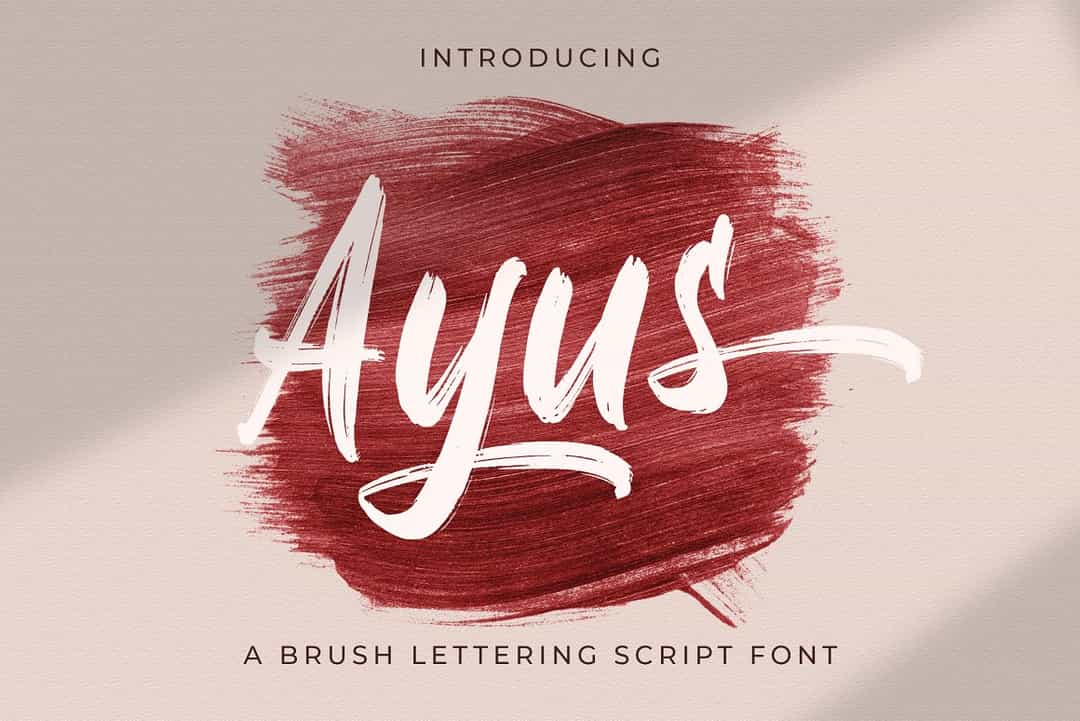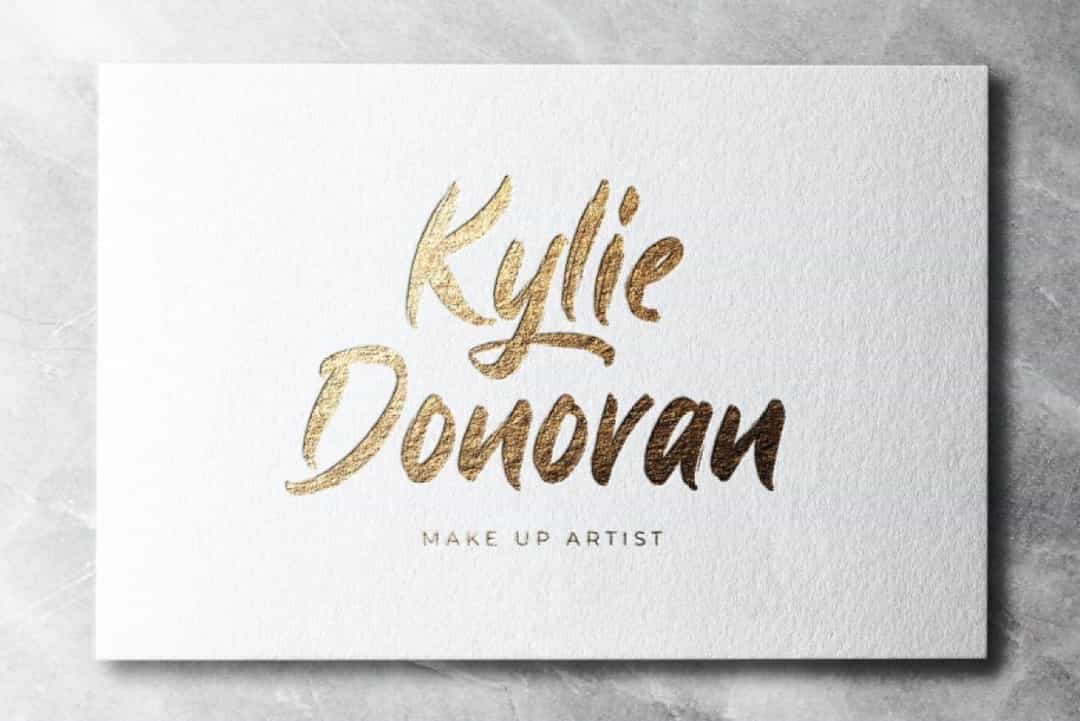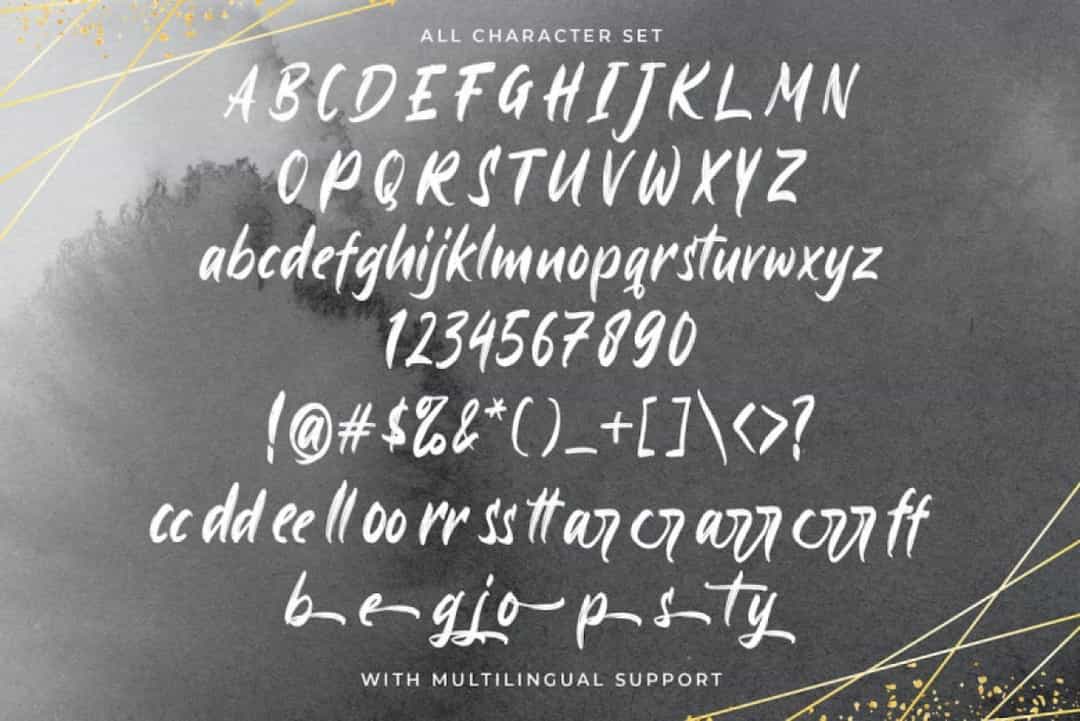
Ayus is an exquisite and flowing brush script typeface created using a brush pen. Get inspired by its stunning style, then incorporate it into your designs! Ayus is perfect for posters, affiches logos magazines t-shirts attractive typographic designs typographical designs etc.